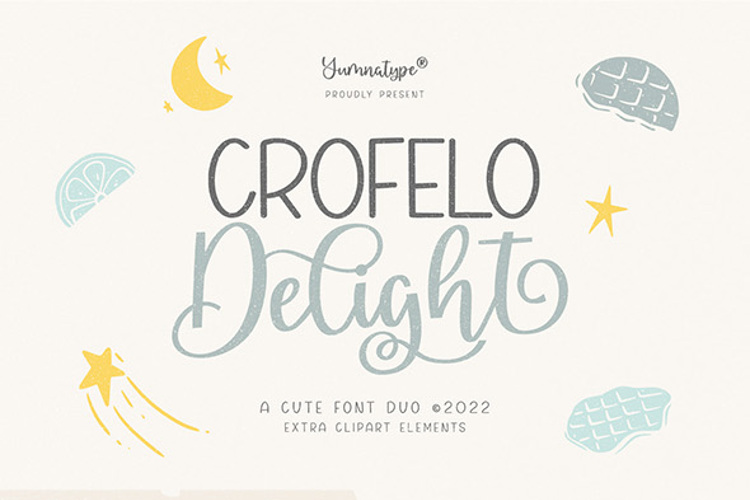
Crofelo Delight Font
Product Description:
It’s the ultimate way to be you. Crofelo Delight-with the combination between cute script and gorgeous display font style you can mix, match, and call your own. This harmonious font duo supporting and advocating each other to make awesome result in your design.
Features:
• Ligatures
• Stylistic Sets
• Swashes
• Lower and uppercases
• Numerals and Punctuations ======================================================================